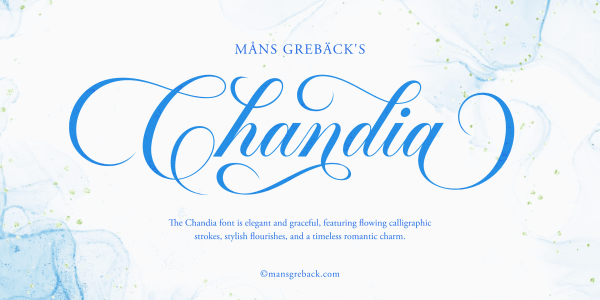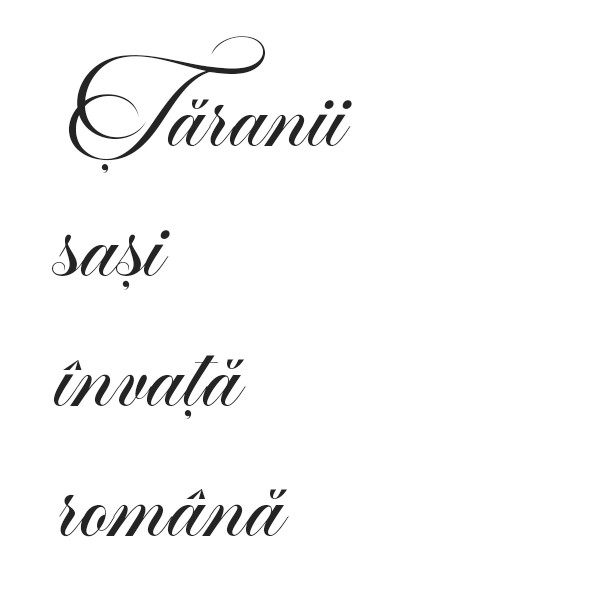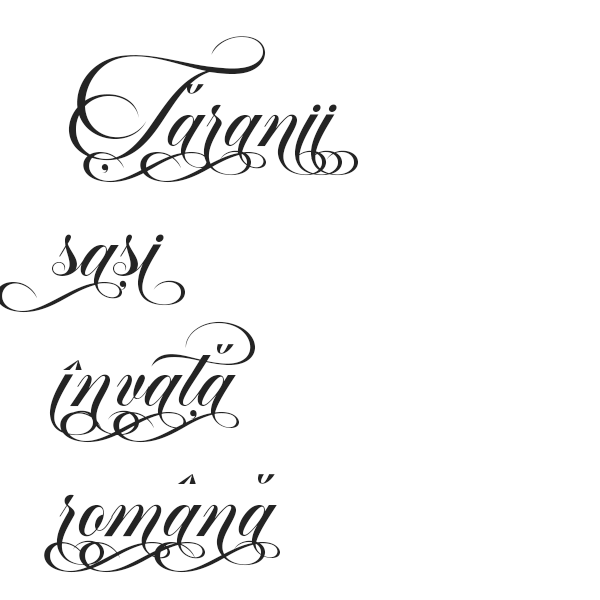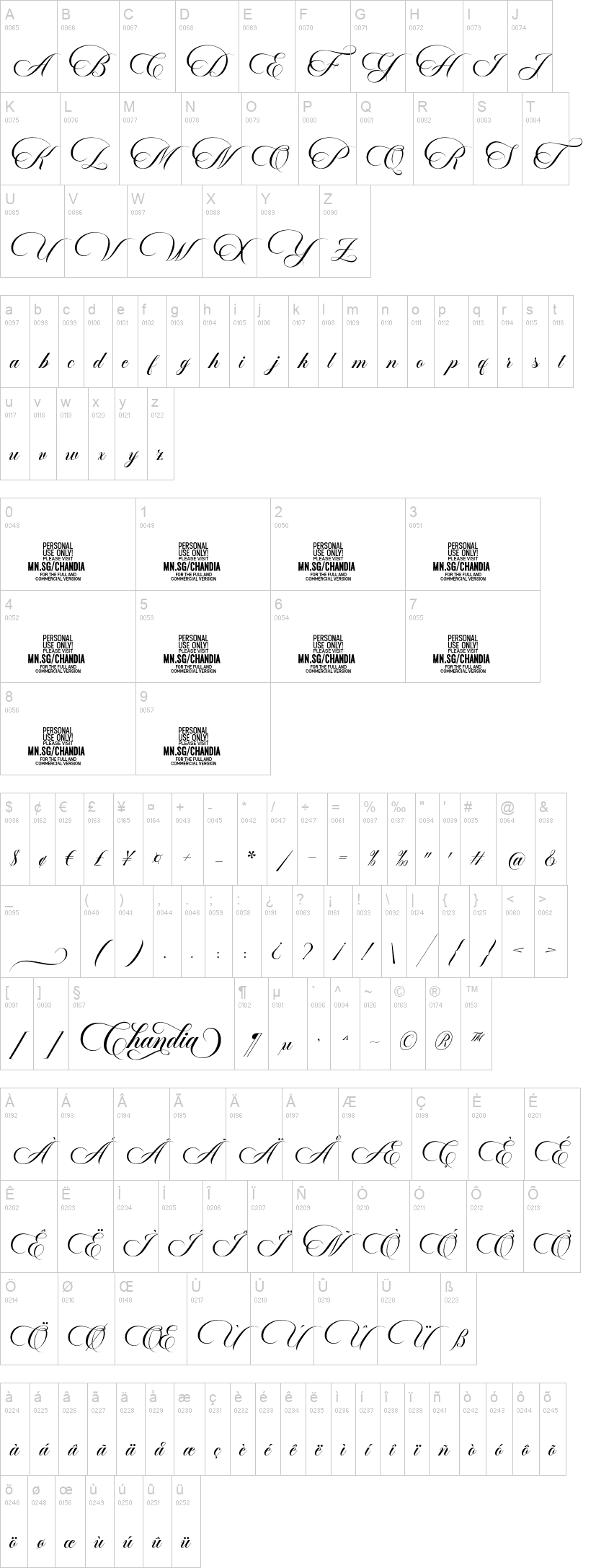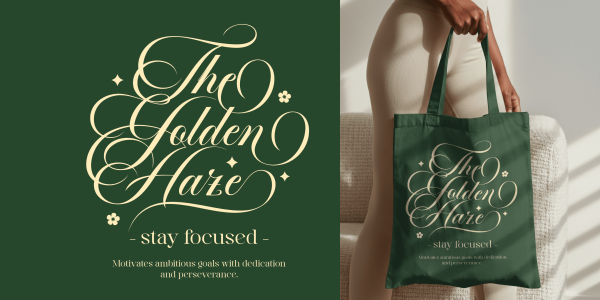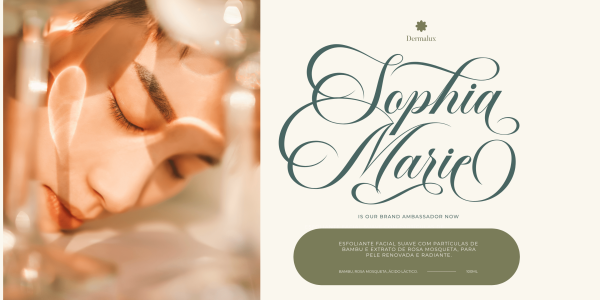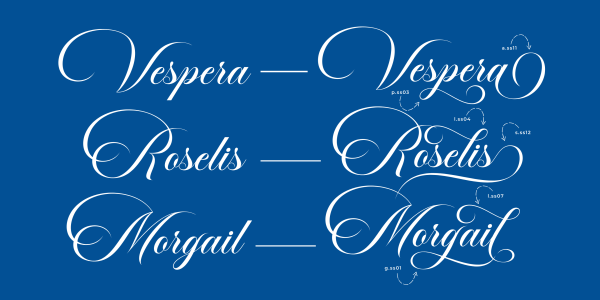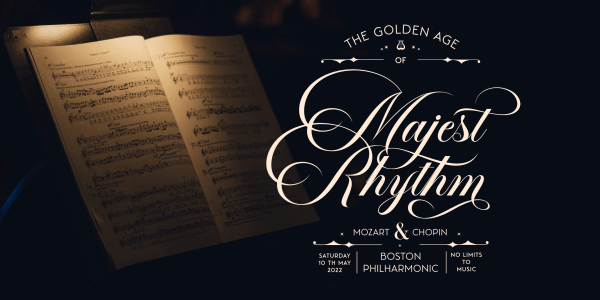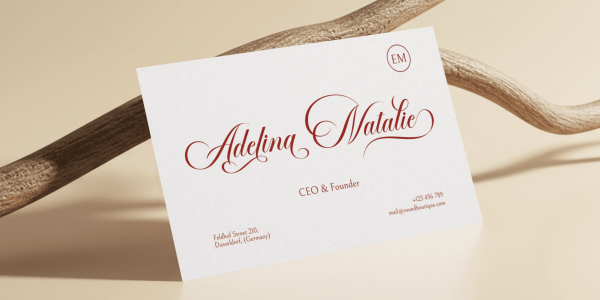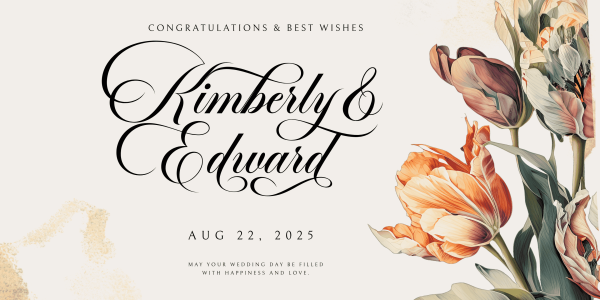
Chandia is a dramatic cursive typeface, drawn with high precision and an elegant hand.
Flourishing with romantic swashes and long tails, the lettering flows with a confident grace that brings to mind engraved invitations.
Use underscore _ after any word to make a swash.
Example: Beautiful_